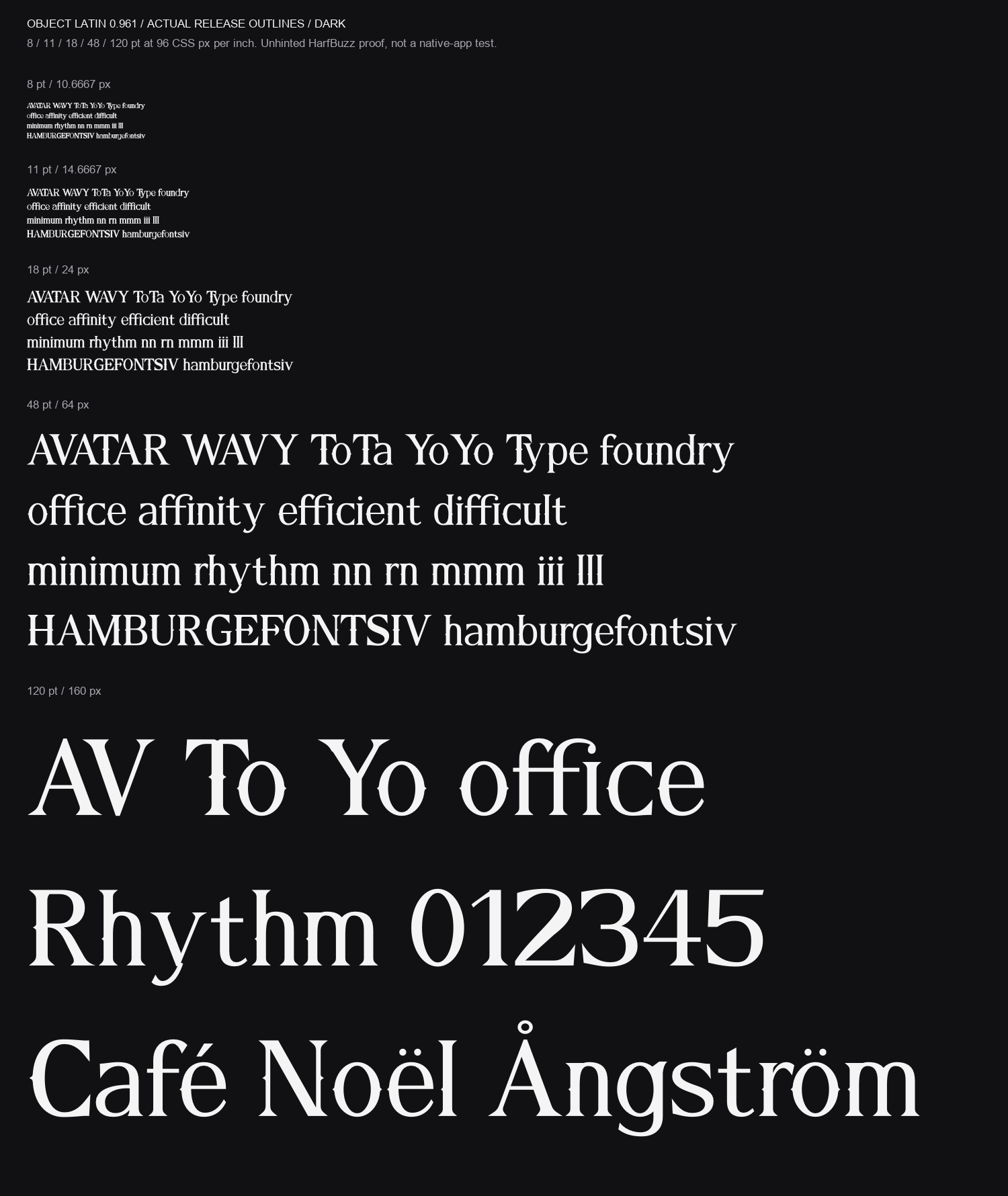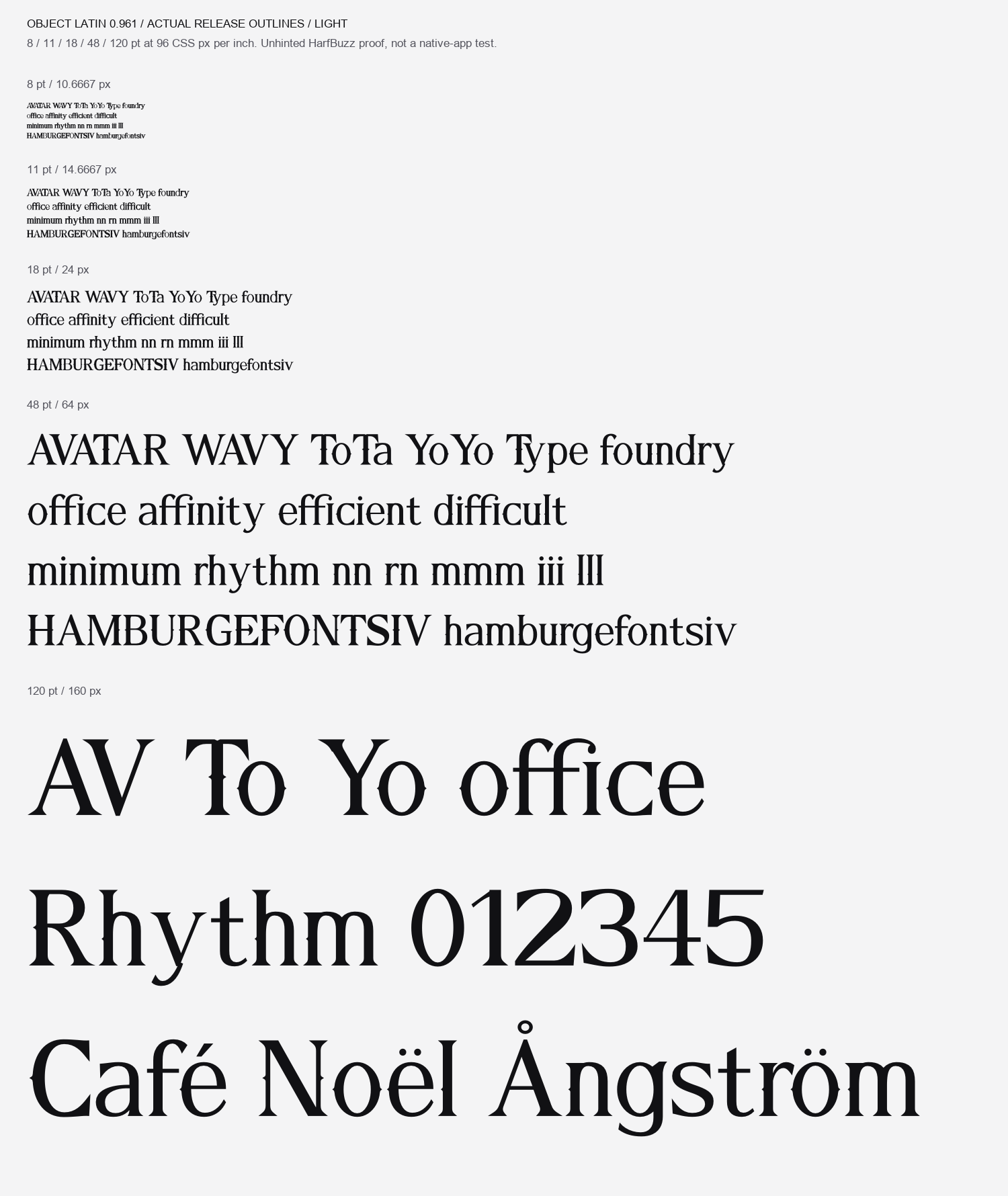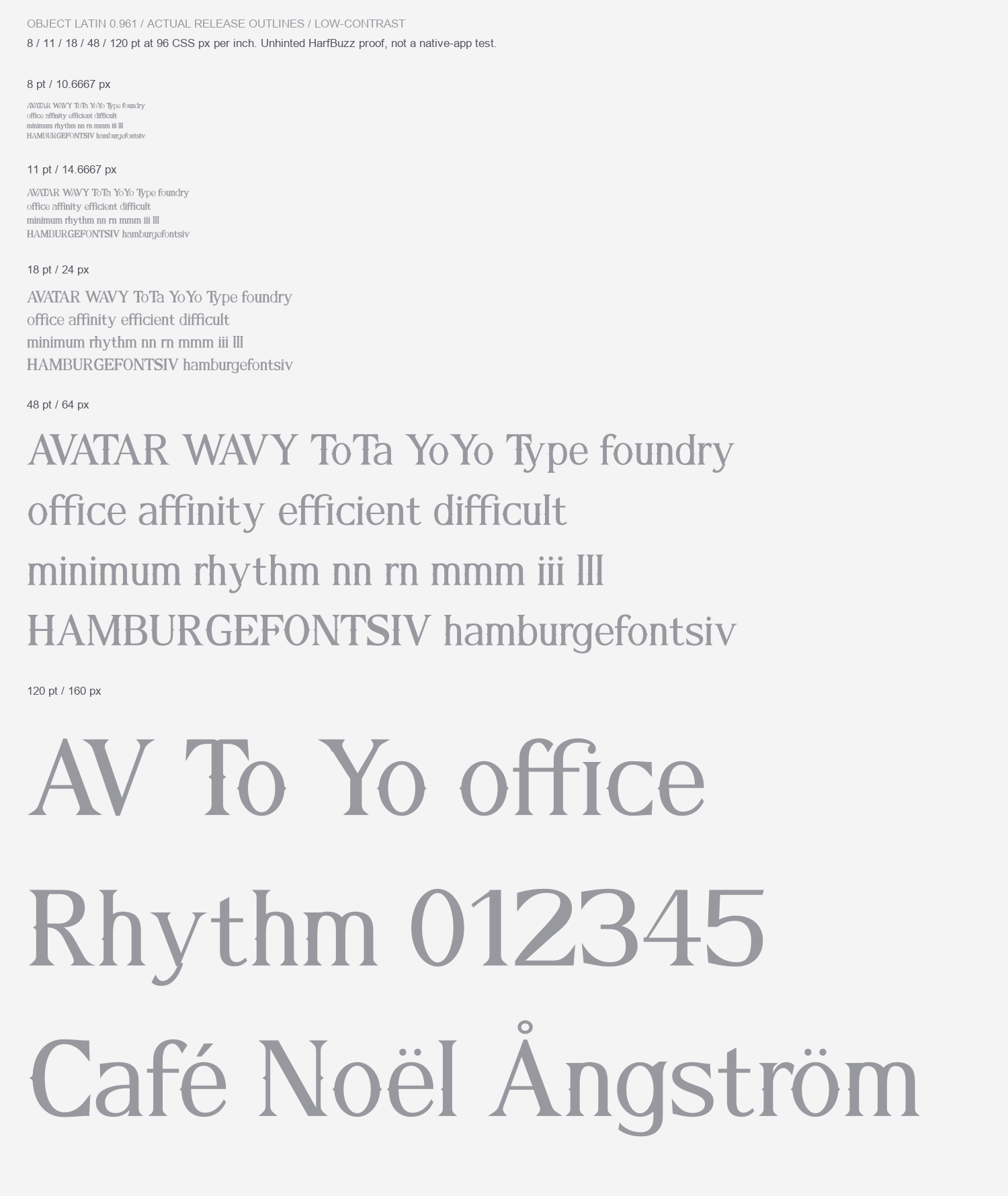
A clear view
of this release.
Object Latin is a free display font available as a design preview. Its files pass the current automated checks. Review in native editing apps is still pending.
- Display headings · 48–120 pt in print
Includes English uppercase and lowercase, numbers, extended Latin, punctuation and selected symbols. See the exact character set; a glyph count does not imply support for every language. Separate Bold and Italic styles are not included.
0.960 · Spacing and contextual refinements
Refined diagonal and punctuation spacing, the optional ornamental O, ligatures and accent attachment. Earlier development reports remain in the package for reference.
Use it at its best.
Start with a large headline and enable kerning. Keep contrast strong and proof the exact words at the final size. Use a more robust body typeface for small labels and long paragraphs.